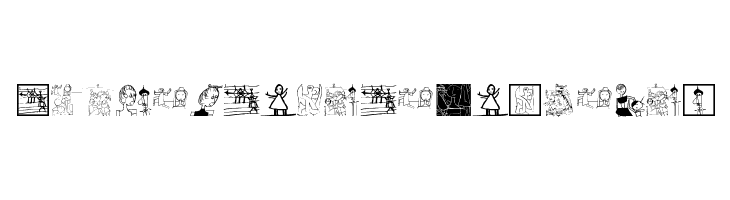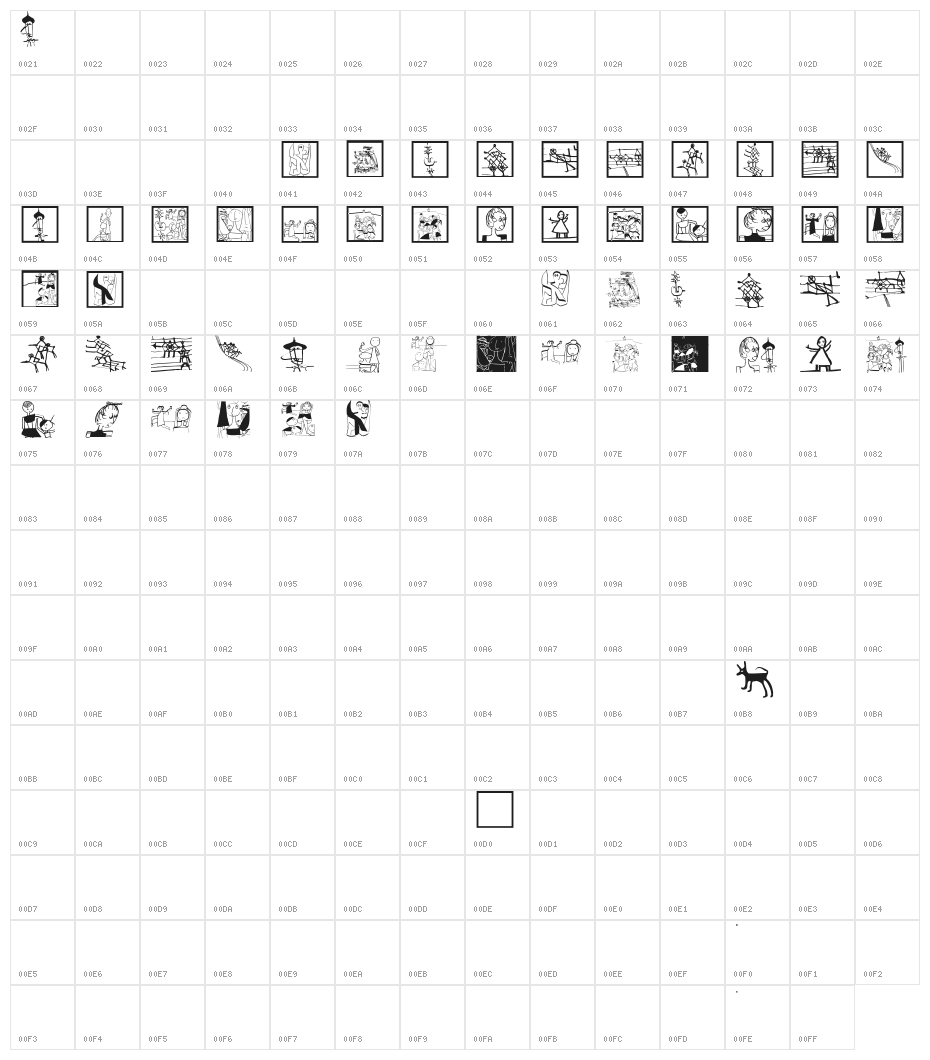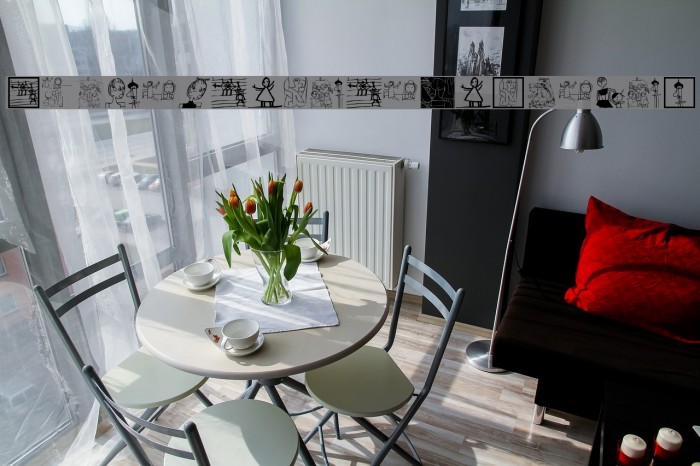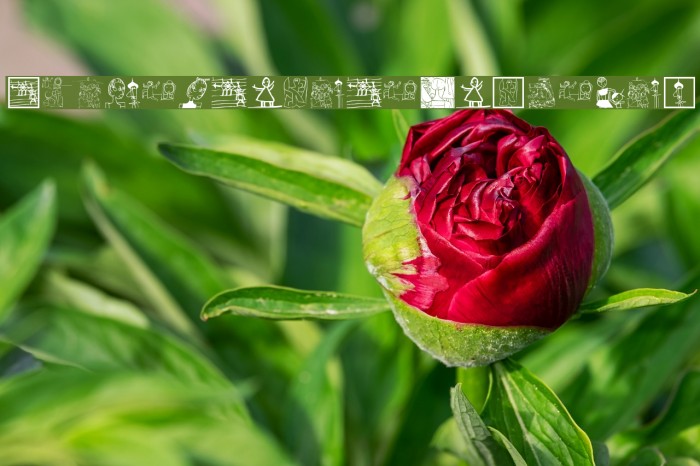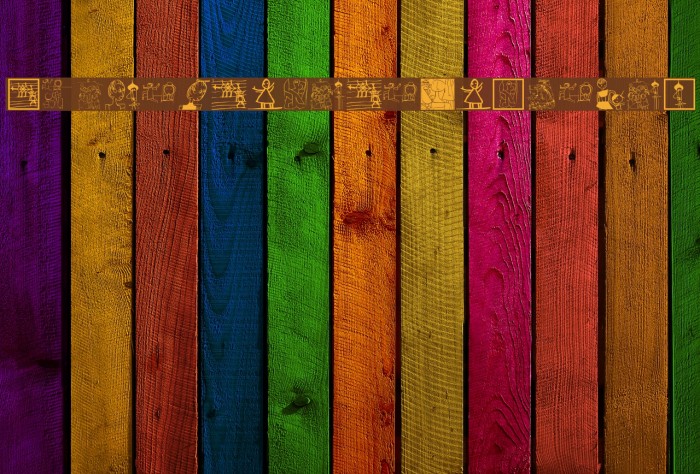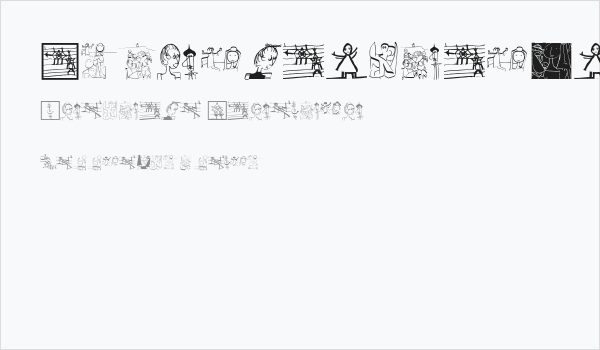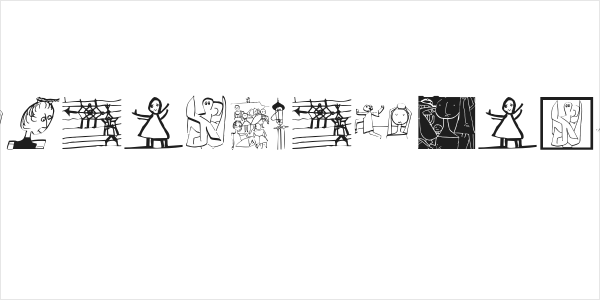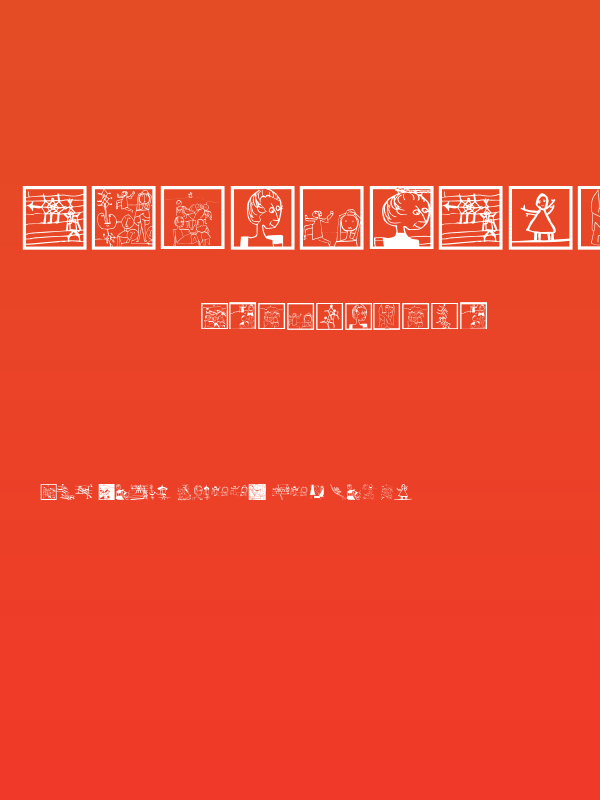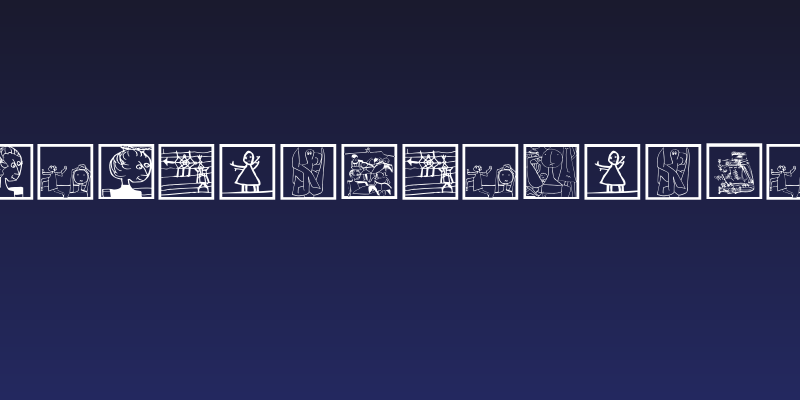
ImprovisationsAboutK Font
ImprovisationsAboutK Description
A highly decorative and illustrative font composed of abstract, whimsical line drawings within square or rectangular frames, each character represented by a unique, playful sketch rather than traditional letterforms.
| Overall Style | Decorative, Artistic, Whimsical |
| Use Case | Logos, Posters, Artistic Headlines, Book Covers |
| Proposed Projects | ChildrenΓ’β¬β’s books, art posters, creative branding, album covers, experimental design projects. |